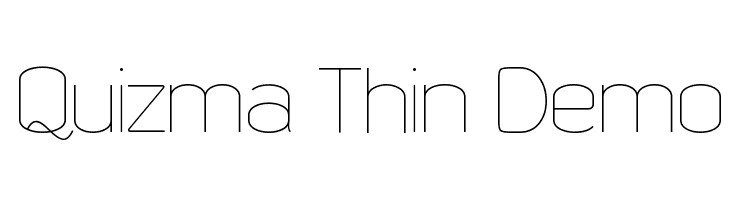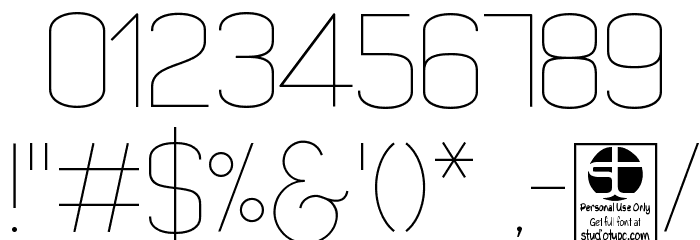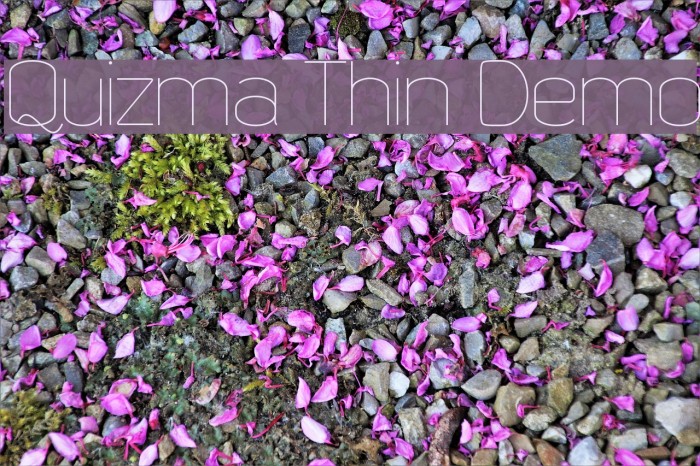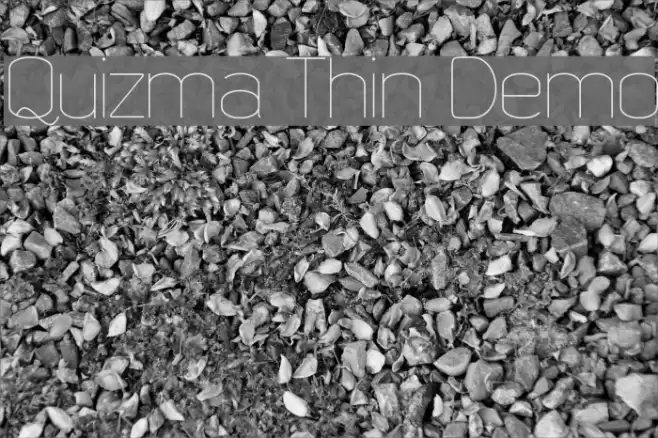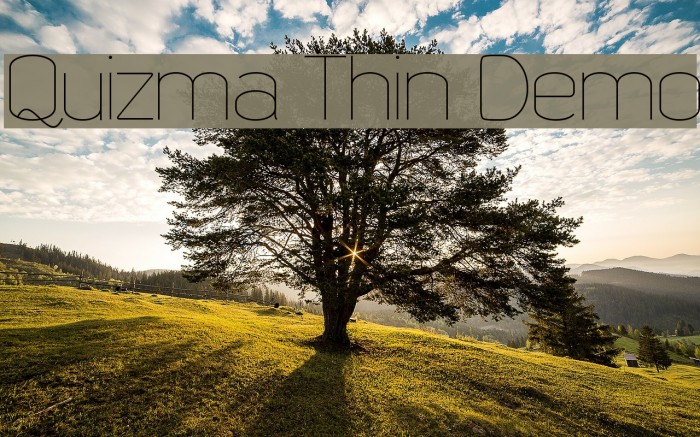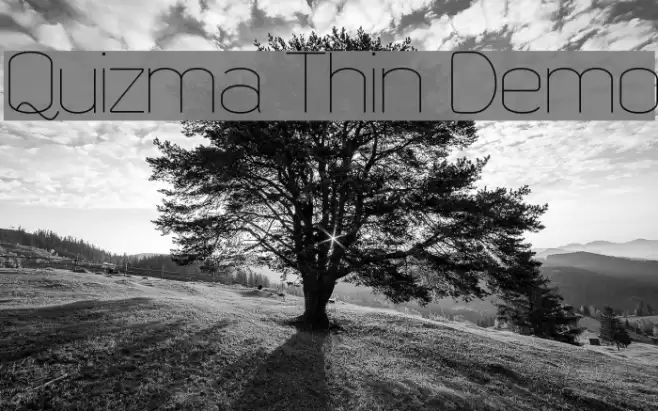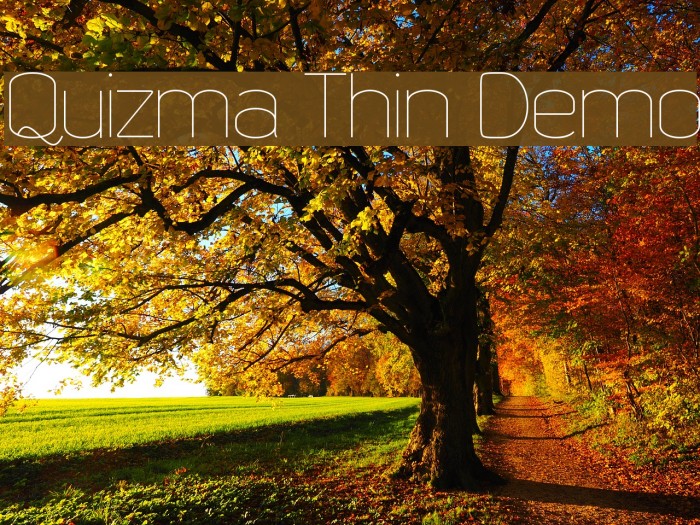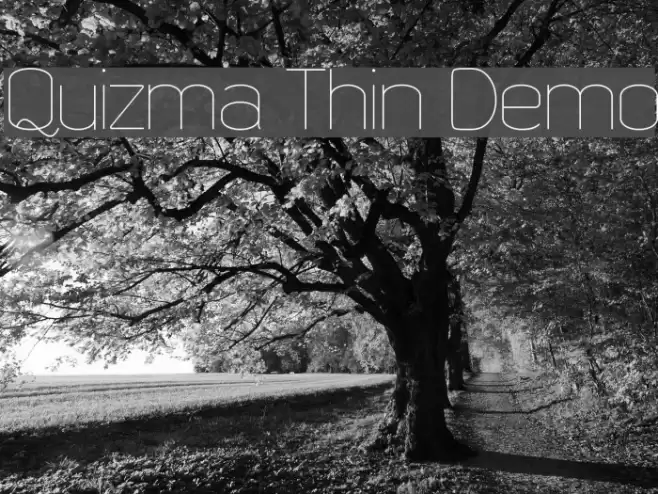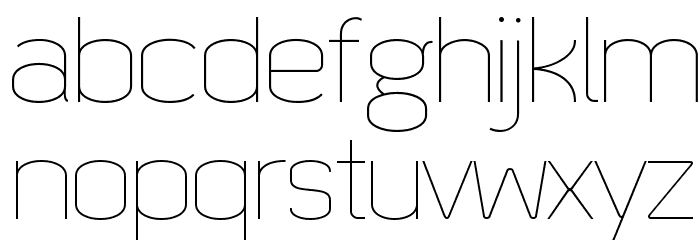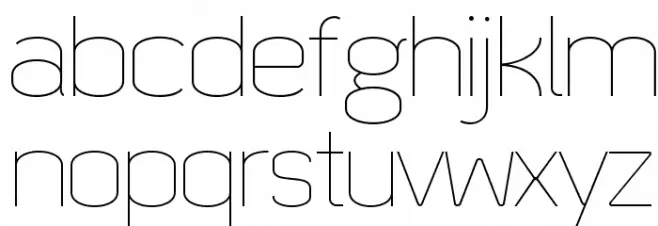
Quizma Thin Demo Font
Quizma Thin Demo Description
This font features a sleek, ultra-thin design with a modern and minimalist aesthetic. The characters are constructed with clean, geometric lines, giving it a futuristic and sophisticated look. The uppercase and lowercase letters maintain a consistent style, with rounded edges and a uniform height that enhances readability. The numerals and special characters are designed with the same attention to detail, ensuring a cohesive appearance across all elements. This font's airy and open feel makes it ideal for projects that require a contemporary and elegant touch.
| Proposed Projects | Ideal for modern branding, tech-related designs, minimalist posters, and elegant invitations. |